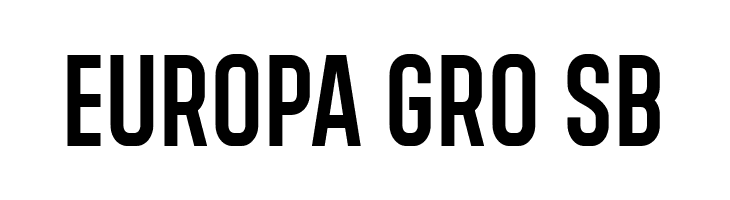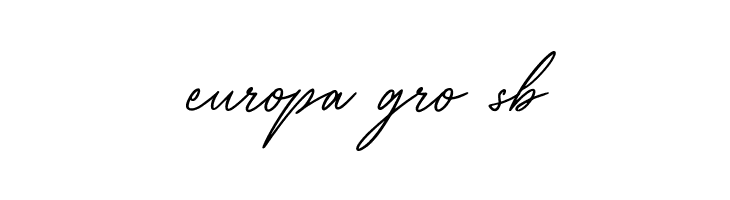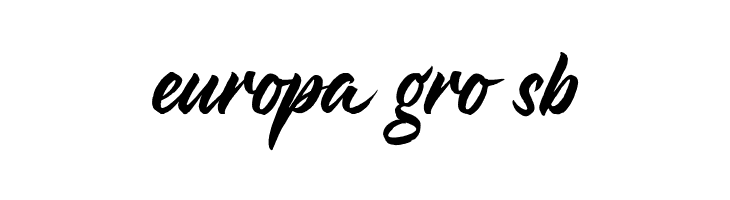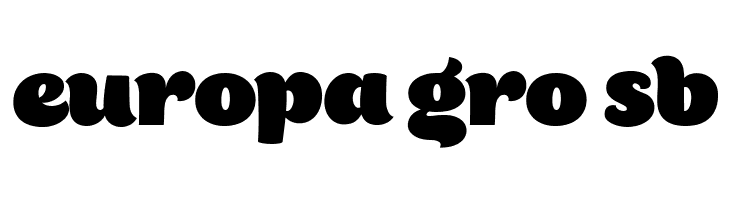
A flowing, cursive script font with elegant, connected strokes.
A bold, cursive font with dynamic, flowing strokes and high contrast.
A bold, condensed sans-serif font with a modern, professional appearance.
An elegant script font with flowing curves and a sophisticated style.
A graceful script font with a flowing, cursive style.
A dynamic brush script font with fluid, expressive strokes.
A bold, dynamic script font with flowing, connected letters.
A bold, playful script font with thick, rounded strokes and a whimsical style.
An elegant script font with fluid, connected strokes and a sophisticated style.
A bold serif font with angular serifs and a modern twist.